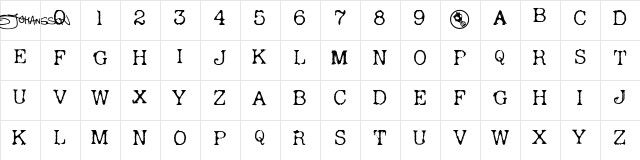
Andreas Typewriter Regular Free Font
Andreas Typewriter Regular
Complete Andreas Typewriter Regular glyph index. Displaying only characters natively supported by Andreas Typewriter Regular font.
Design Context for Andreas Typewriter
Andreas Typewriter uses fixed-width spacing throughout, giving it the structured, systematic character associated with coding environments and technical documentation.
Pro Tip: Use Andreas Typewriter with slightly increased line-height for extended reading - fixed-width spacing can feel dense in longer passages without extra breathing room.